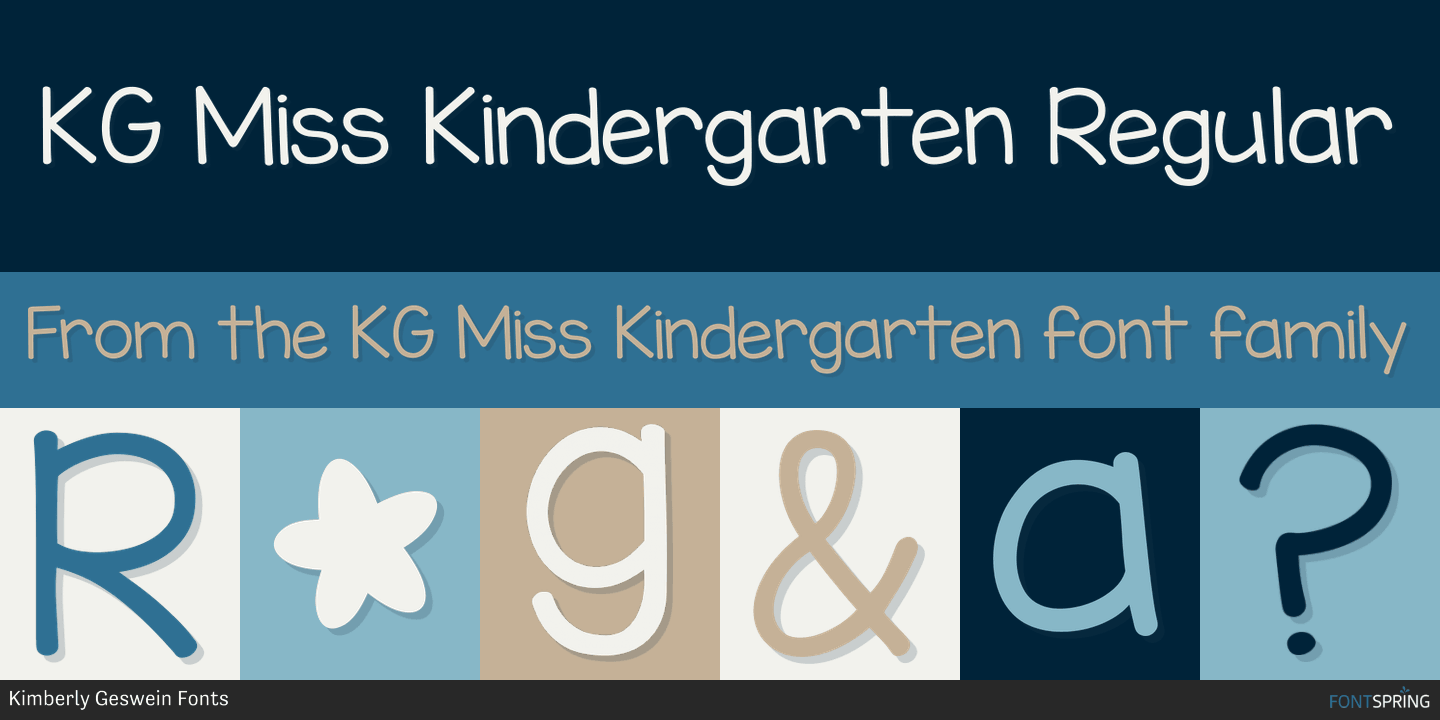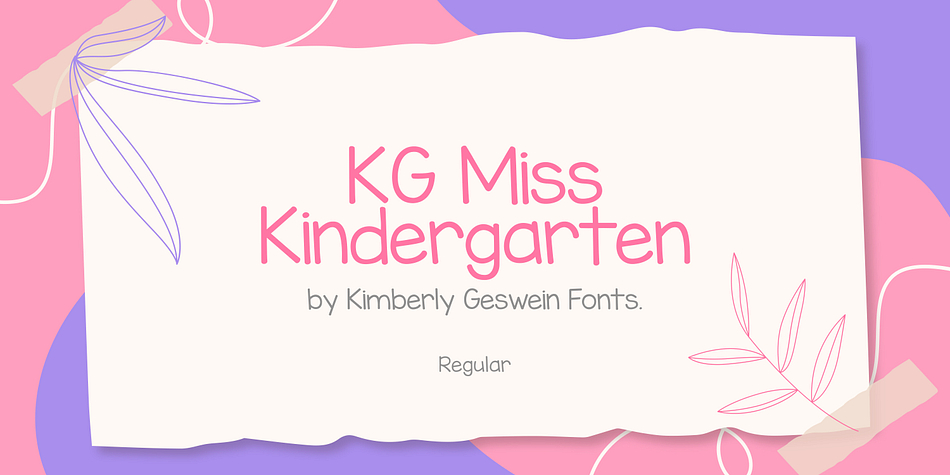
KG Miss Kindergarten is a hand drawn font published by Kimberly Geswein Fonts.
This font coordinates with KG All of the Stars.
Also don’t miss the KG Miss Kindy Collection, which rounds out the KG Miss Kindergarten family.